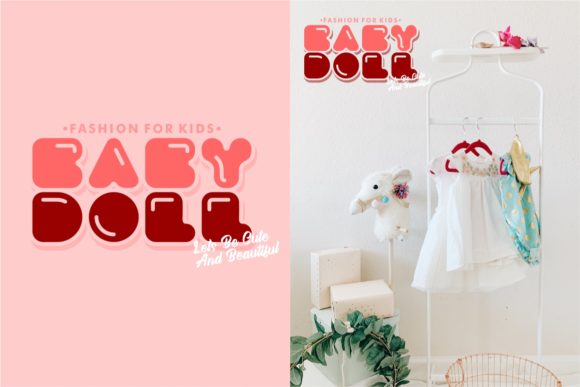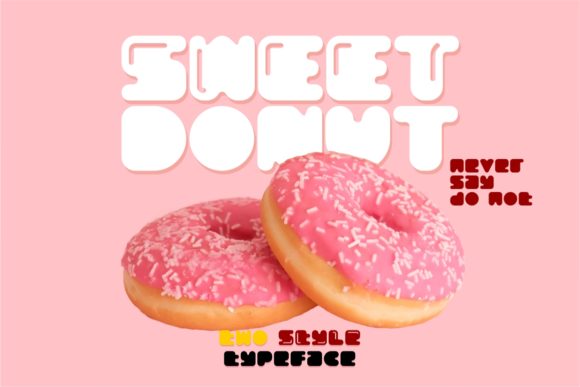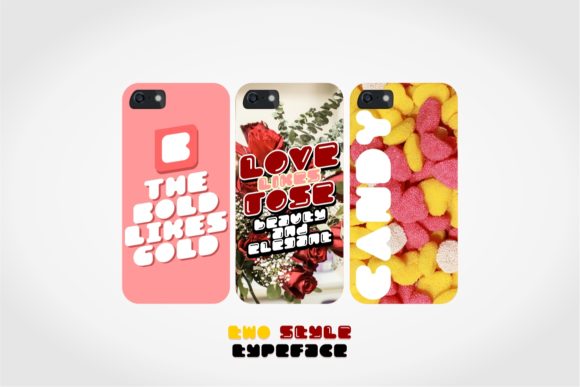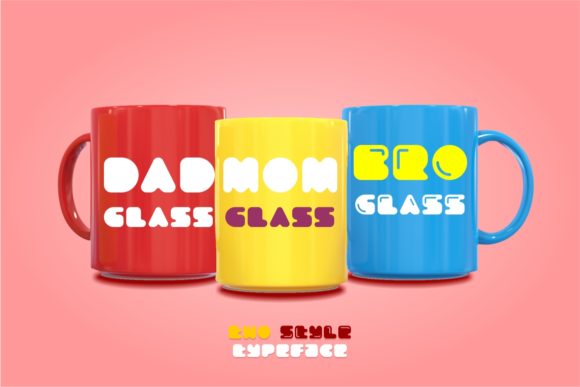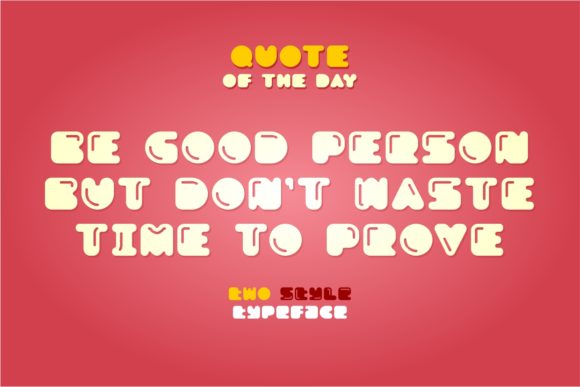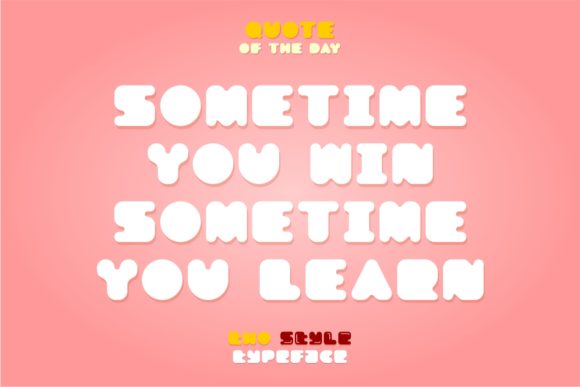
The Boldest Font: Elevate Your Designs with a Chunky yet Funky Style
Are you tired of using the same old fonts in your creative projects? Look no further than the boldest font, a game-changing typography style that’s about to take your designs to the next level. Boldest is indeed one of the boldest fonts you’ll use. It’s chunky, yet funky, and will turn any creative project into a stunner!
What Makes a Font Bold?
Before we dive into the world of the boldest font, let’s talk about what makes a font bold. A bold font is a typeface that is thicker and heavier than a regular font. It’s designed to grab attention, convey confidence, and add emphasis to text. Bold fonts are perfect for headings, titles, and any text that needs to stand out.
The Power of Boldest Font
So, what sets the boldest font apart from other bold fonts? For starters, its chunky yet funky design makes it a standout in any design project. The boldest font is not just bold; it’s also playful, energetic, and attention-grabbing. It’s perfect for designers and crafters who want to add a touch of personality to their work.
Uses of the Boldest Font
The boldest font is incredibly versatile and can be used in a variety of design projects, including:
• Posters and Flyers: The boldest font is perfect for creating eye-catching posters and flyers that grab attention.
• Logos and Branding: Use the boldest font to create a bold and memorable logo that sets your brand apart.
• Social Media Graphics: Add a touch of personality to your social media graphics with the boldest font.
• Headings and Titles: Use the boldest font to add emphasis to headings and titles in your designs.
Tips for Using the Boldest Font
Here are some tips for using the boldest font in your design projects:
• Use it sparingly: While the boldest font is attention-grabbing, it can be overwhelming if used too much. Use it sparingly to add emphasis to key text.
• Pair it with a simple font: Pair the boldest font with a simple font to create contrast and add visual interest.
• Experiment with colors: The boldest font looks great in bold colors, so don’t be afraid to experiment and find the perfect hue.
Why Designers and Crafters Love the Boldest Font
Designers and crafters love the boldest font for many reasons. Here are a few:
• It’s attention-grabbing: The boldest font is designed to grab attention and add emphasis to text.
• It’s versatile: The boldest font can be used in a variety of design projects, from posters and flyers to logos and social media graphics.
• It’s fun: The boldest font is playful and energetic, making it perfect for designers and crafters who want to add a touch of personality to their work.
In conclusion, the boldest font is a game-changing typography style that’s perfect for designers and crafters who want to add a touch of personality to their work. Its chunky yet funky design makes it a standout in any design project, and its versatility makes it perfect for a variety of uses. So why not give the boldest font a try and see how it can elevate your designs?
With its bold and playful style, the boldest font is sure to turn any creative project into a stunner. Whether you’re a seasoned designer or a crafter just starting out, the boldest font is a must-have in your typography arsenal.